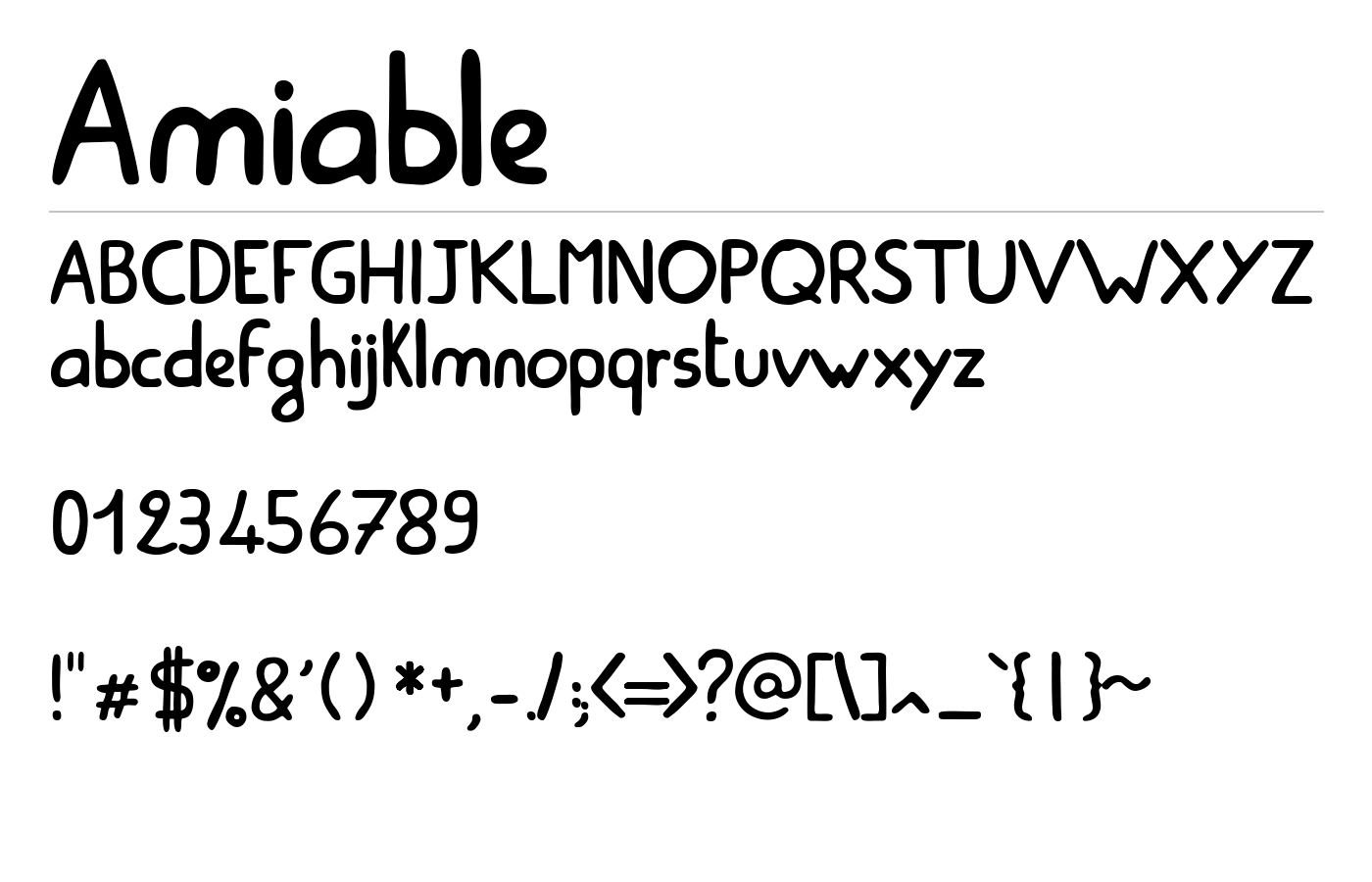
Amiable is a friendly and casual sans serif font with a hand-drawn, playful feel. Its rounded, irregular letterforms and medium weight create an approachable and informal look, perfect for projects that want a warm, human touch. This font works well for children's books, informal branding, and creative headlines where a personal and inviting style is desired.
Amiable Font